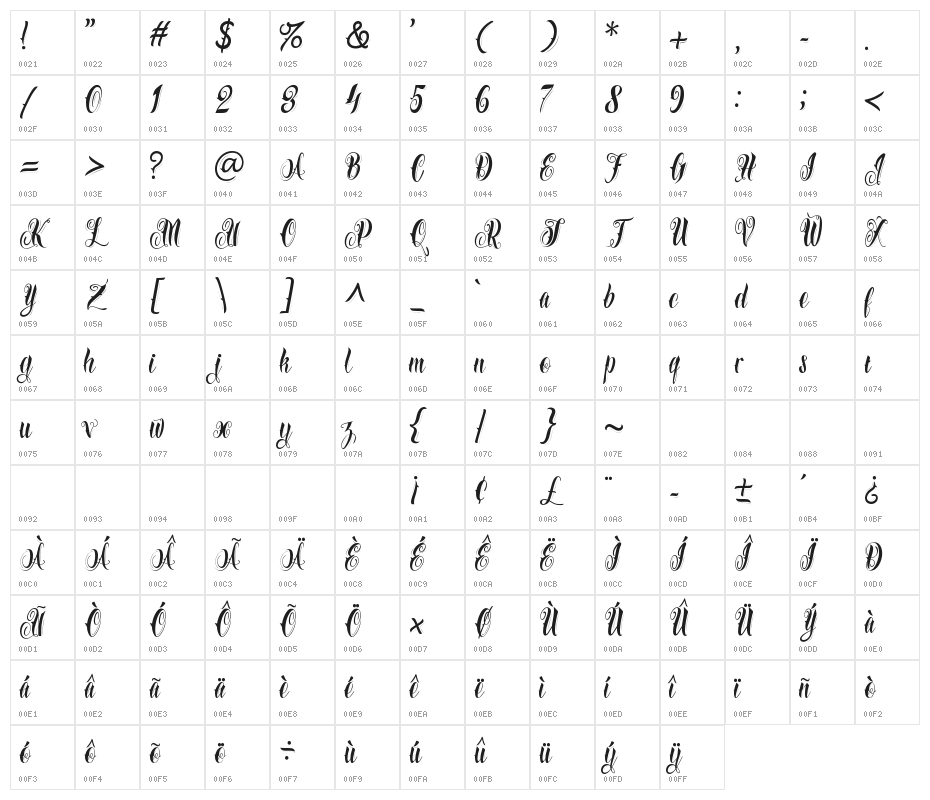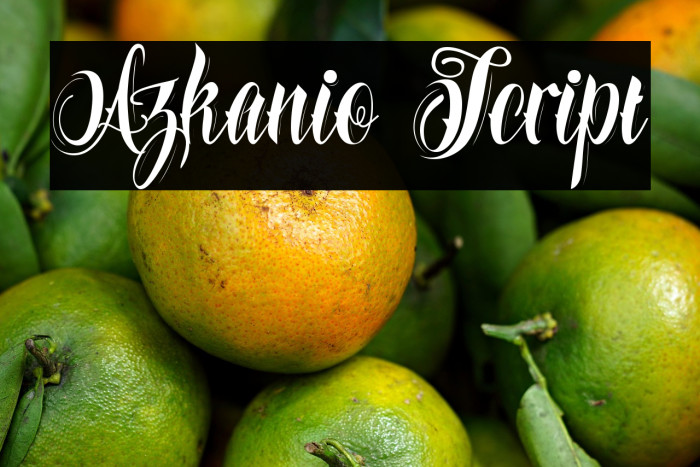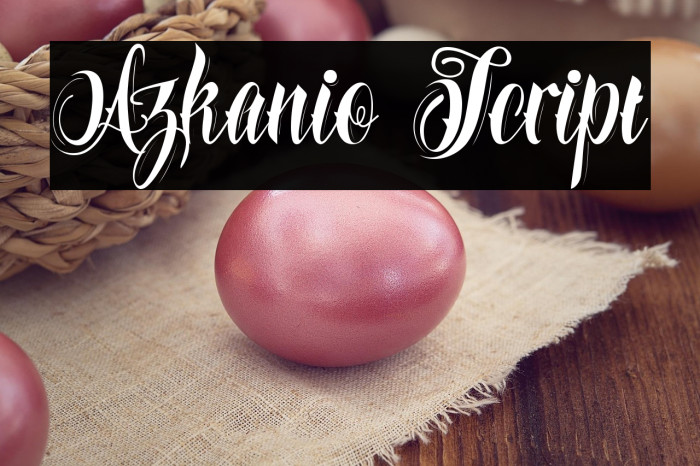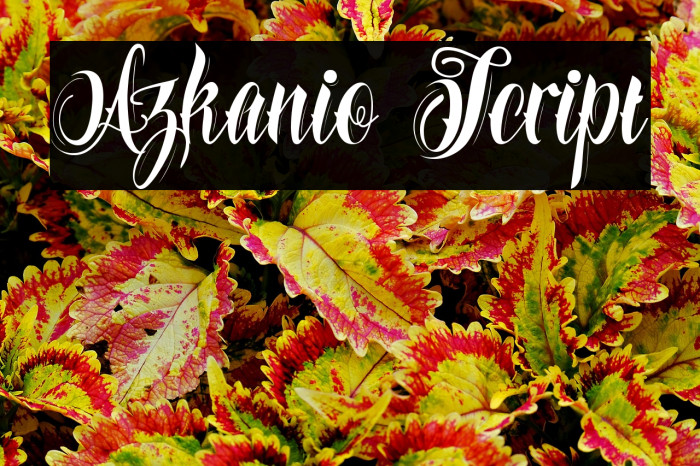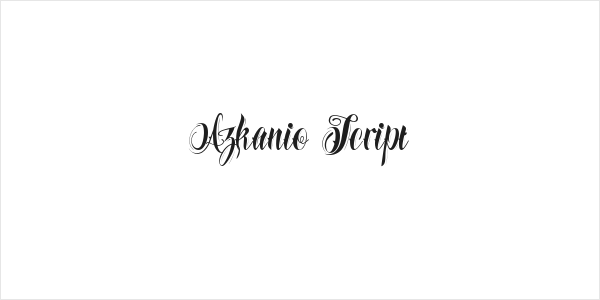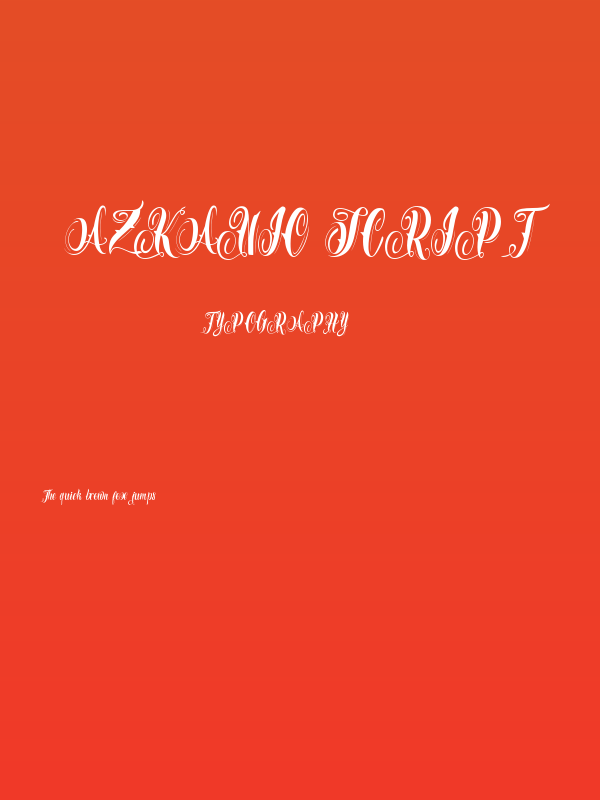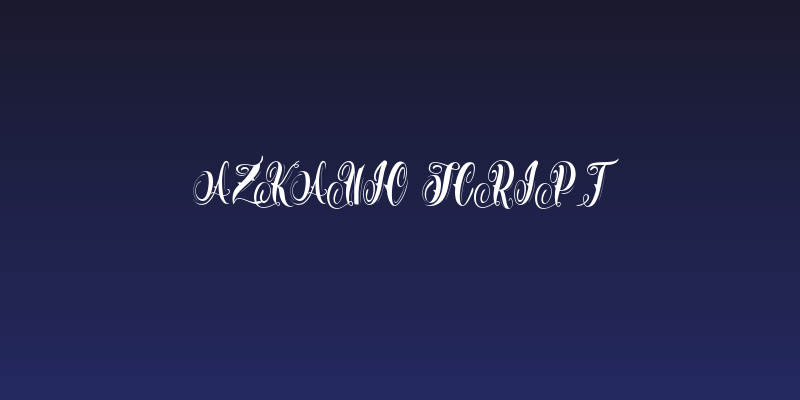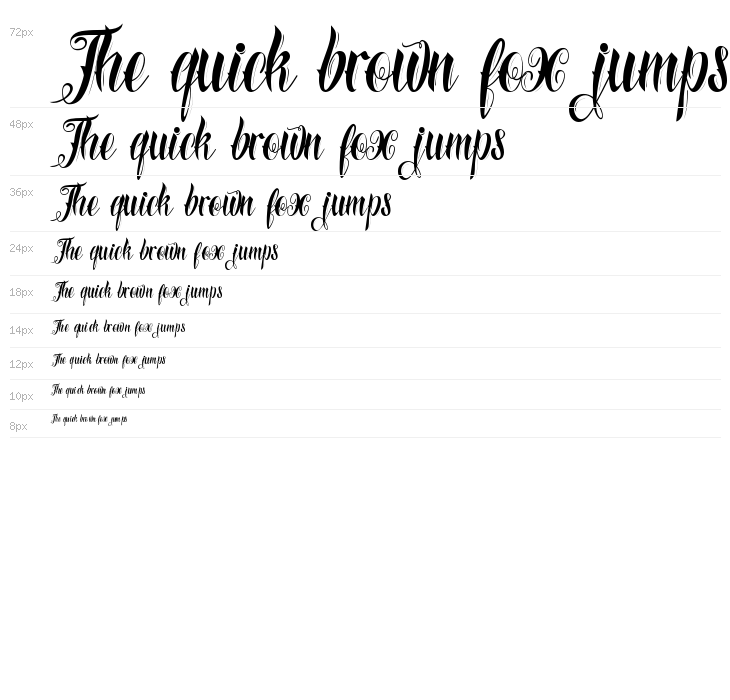
Azkanio Script Font
Azkanio Script Description
This font is a decorative script style that exudes elegance and sophistication. The uppercase letters are characterized by elaborate swirls and flourishes, giving them a dramatic and artistic appearance. The lowercase letters maintain a flowing, cursive style that complements the uppercase, with some letters featuring unique loops and curves. The numerals are bold and maintain the decorative theme, while the special characters are equally ornate, ensuring consistency throughout the typeface. This font is ideal for projects that require a touch of luxury and creativity.
| Use Case | Logos, Headlines, Invitations |
| Proposed Projects | Ideal for wedding invitations, luxury branding, greeting cards, and artistic posters. |